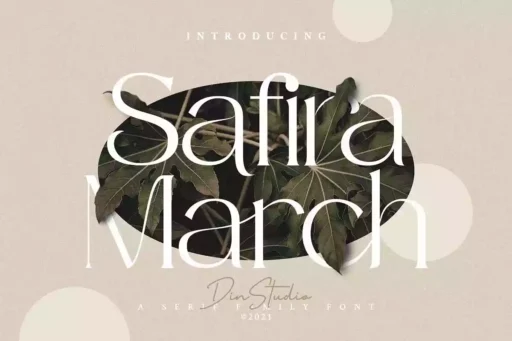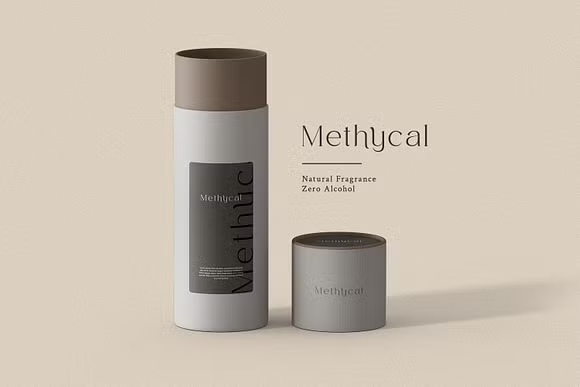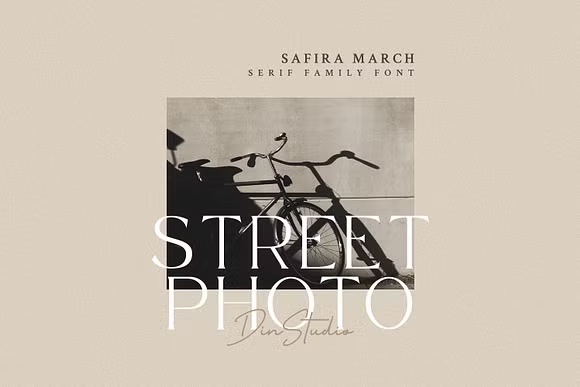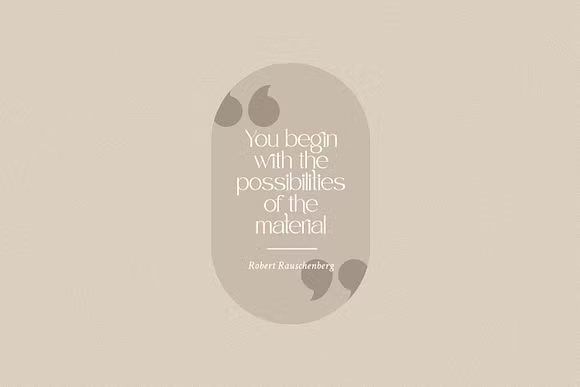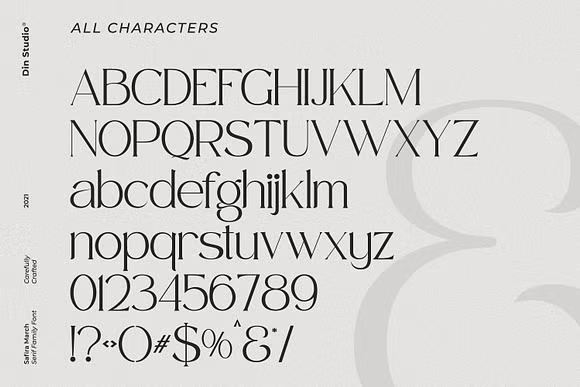
Safira March Font
Safira March, a serif font, skillfully combines the charm of the tropical theme with the modern aesthetics of the modern world of typography. Donis Miftahudin designed this font, which was released by Din Studio. Owing to its historical background and flexibility of use, it is highly popular among designers and creatives of different disciplines.
Safira March is a serif font by Donis Miftahudin, a type designer who wanted to design a font that would be friendly and beautiful. Originating from the tropical climate and the diverse cultures of tropical nations the font gives a certain rustic feel to it. Thanks to the attention to detail for each character and Miftahudin’s love for typography, Safira March is a versatile typeface that is both beautiful and functional.
The design of Safira March has a distinctive feature in the combination of the traditional features of the serif type and the modern approach to design. The font contains some serif that gives a hint of the classic typography yet it has a sleek and modern look. This balance between the traditional and the contemporary allows Safira March to be a highly flexible typeface that is suitable in various designs and styles.
Safira March comes with a complete nine weights, starting from Thin to Black, to help the designers create well-defined typographical communication and to make their work stand out. The font is also suitable for multiple languages, thus making it suitable for use in international companies and projects with multiple languages.
Safira March boasts of its flexibility due to the many different uses it can be put to. This makes it a perfect fit for branding and logo design where it can leave a lasting impression with its target audience. The font is also rather readable and legible which makes it perfect for body text for both print and screens which will not cause eye strain.
Safira March is an ideal font for various design purposes, such as making posters, invitations, packaging designs, social media designs, and website layouts. Due to its versatility, the font is good for projects that require professionalism and friendliness.
Safira March Font is a Serif Fonts font that brings a professional and versatile look to your projects. Safira March, a serif font, skillfully combines the charm of the tropical theme with the modern aesthetics of the modern world of typography.